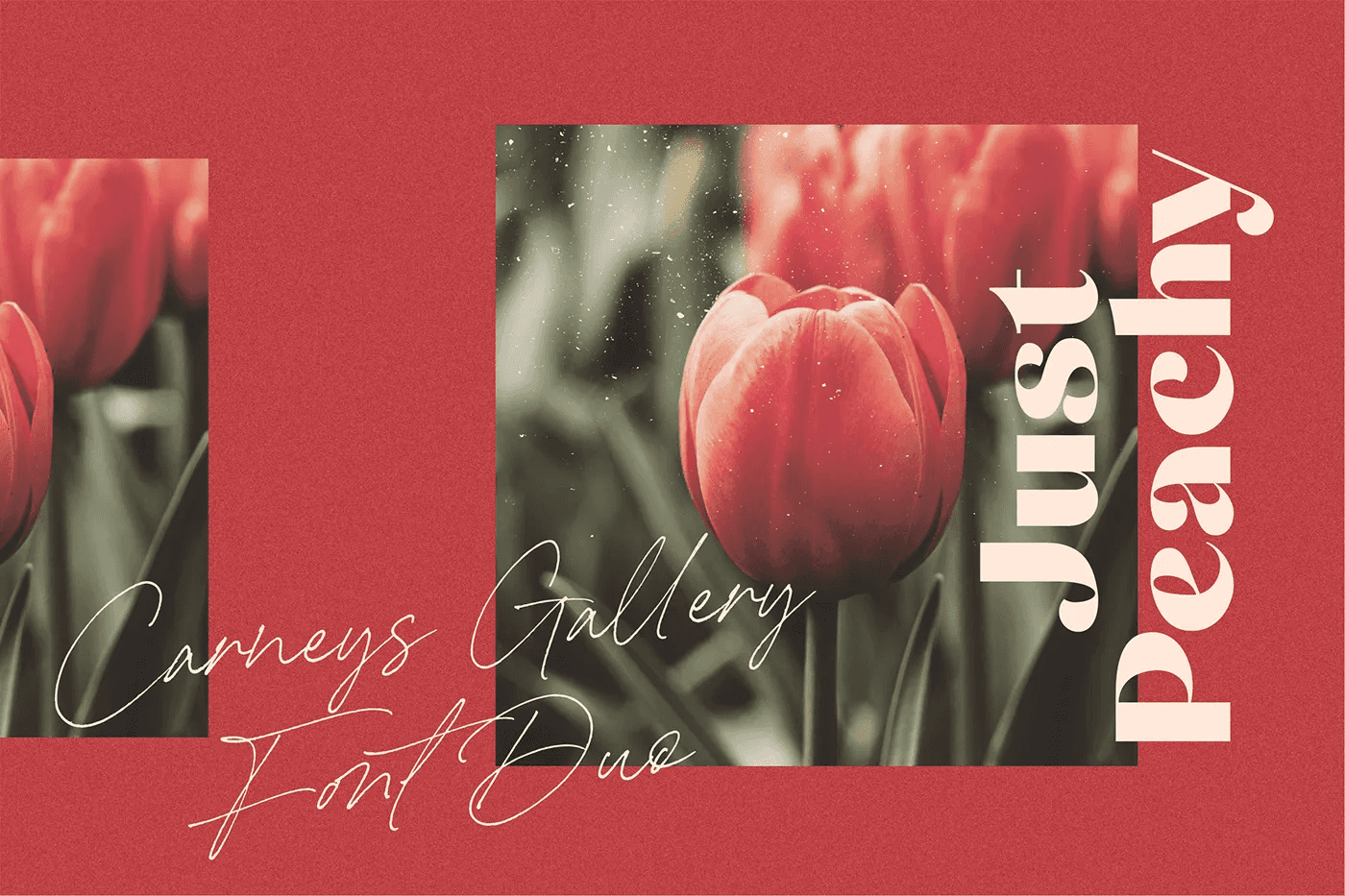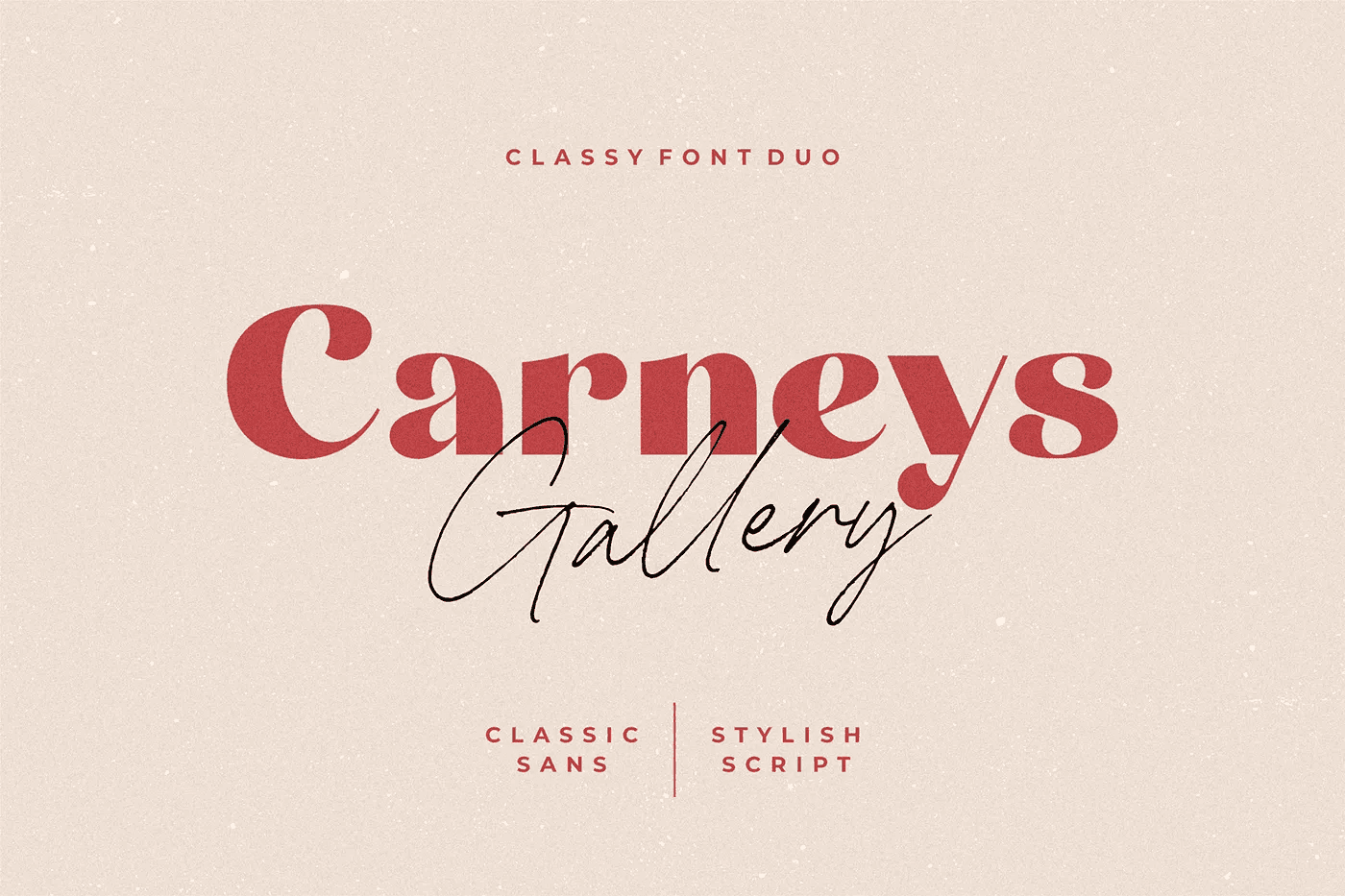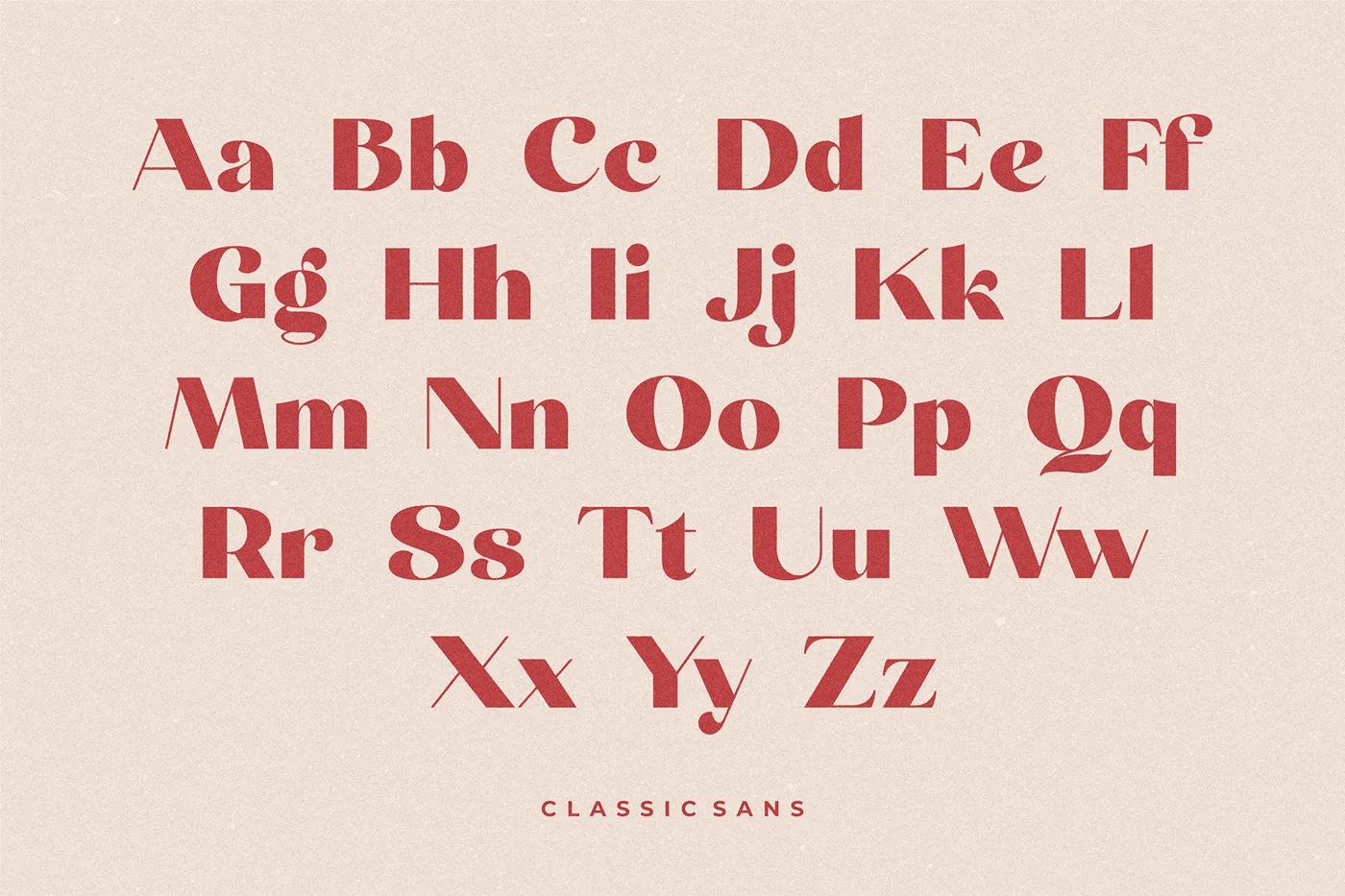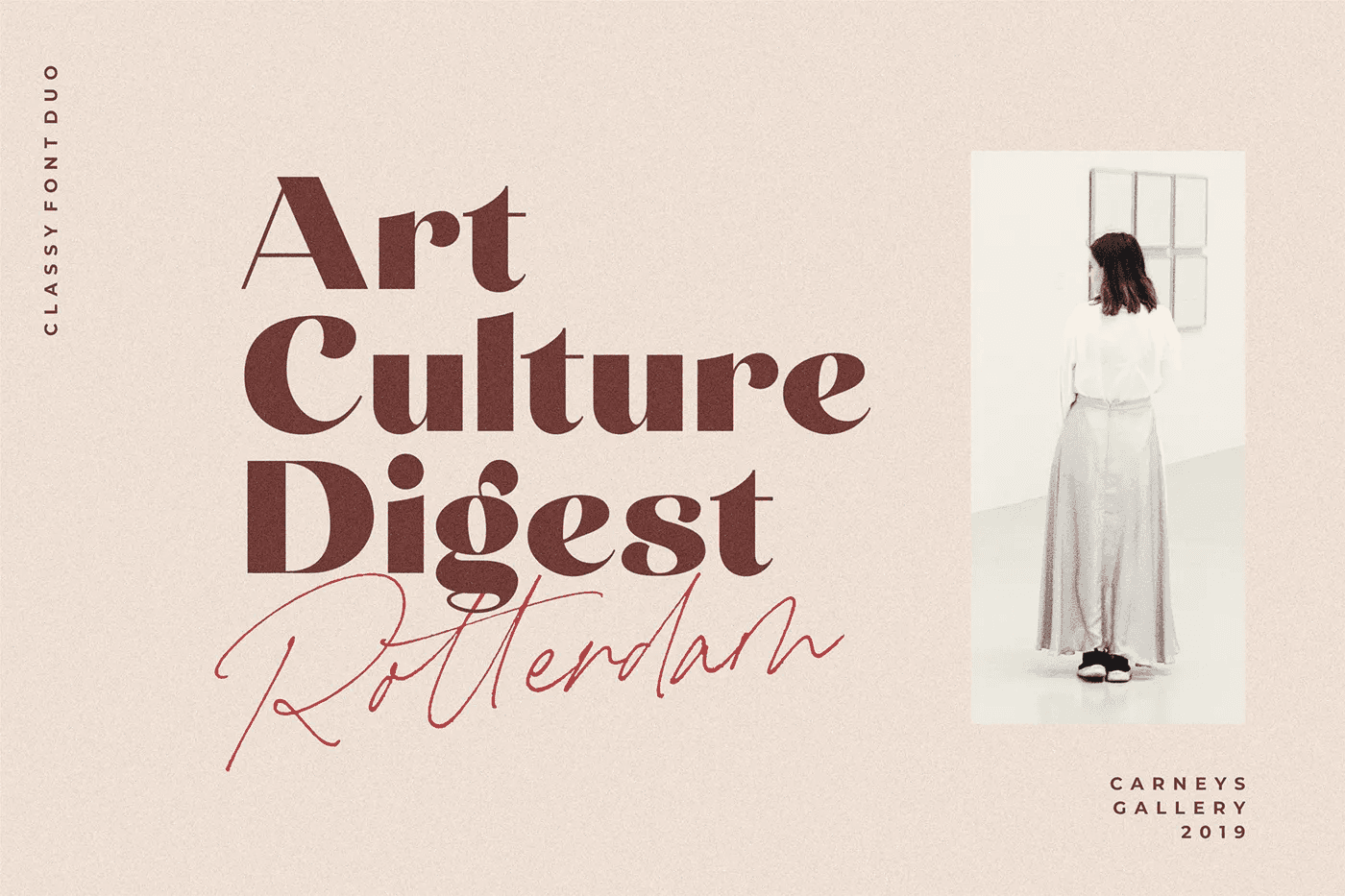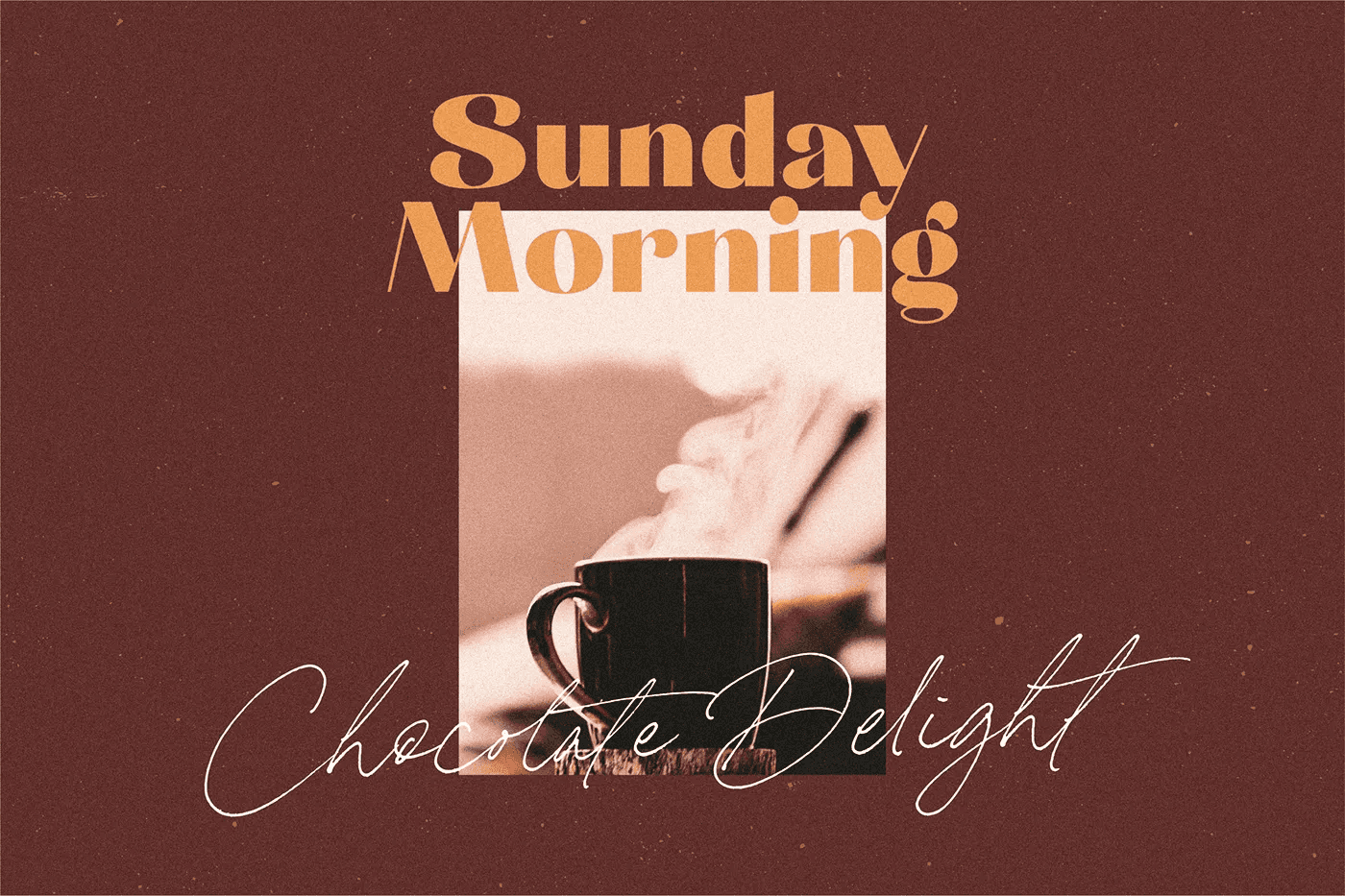
Hi there! The Letteralle Studio is back with a free demo font which is Free Carneys Gallery Font Duo. It is a free demo font that you can use on your project based on the license. This free font is coming with personal use license, but go get more features by purchasing it. Make your own projects look more luxurious and professional. So, it is suitable for wedding invitation, gift cards, branding, menu, packaging, and more. This font is available for the OTF format file that you can install and use it on your devices.